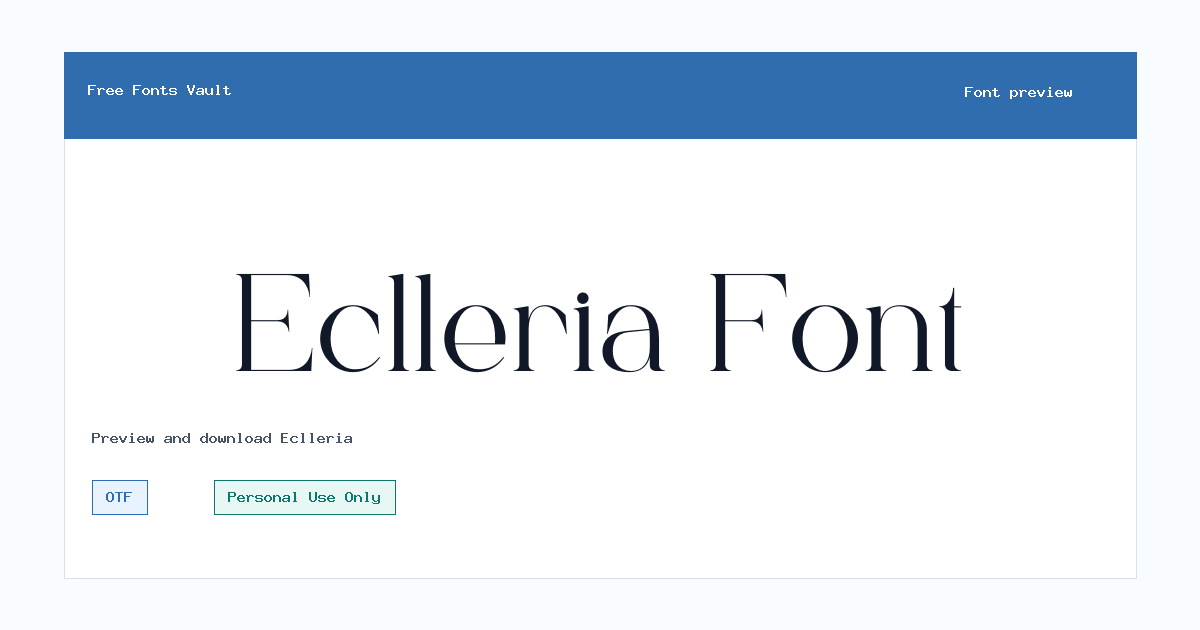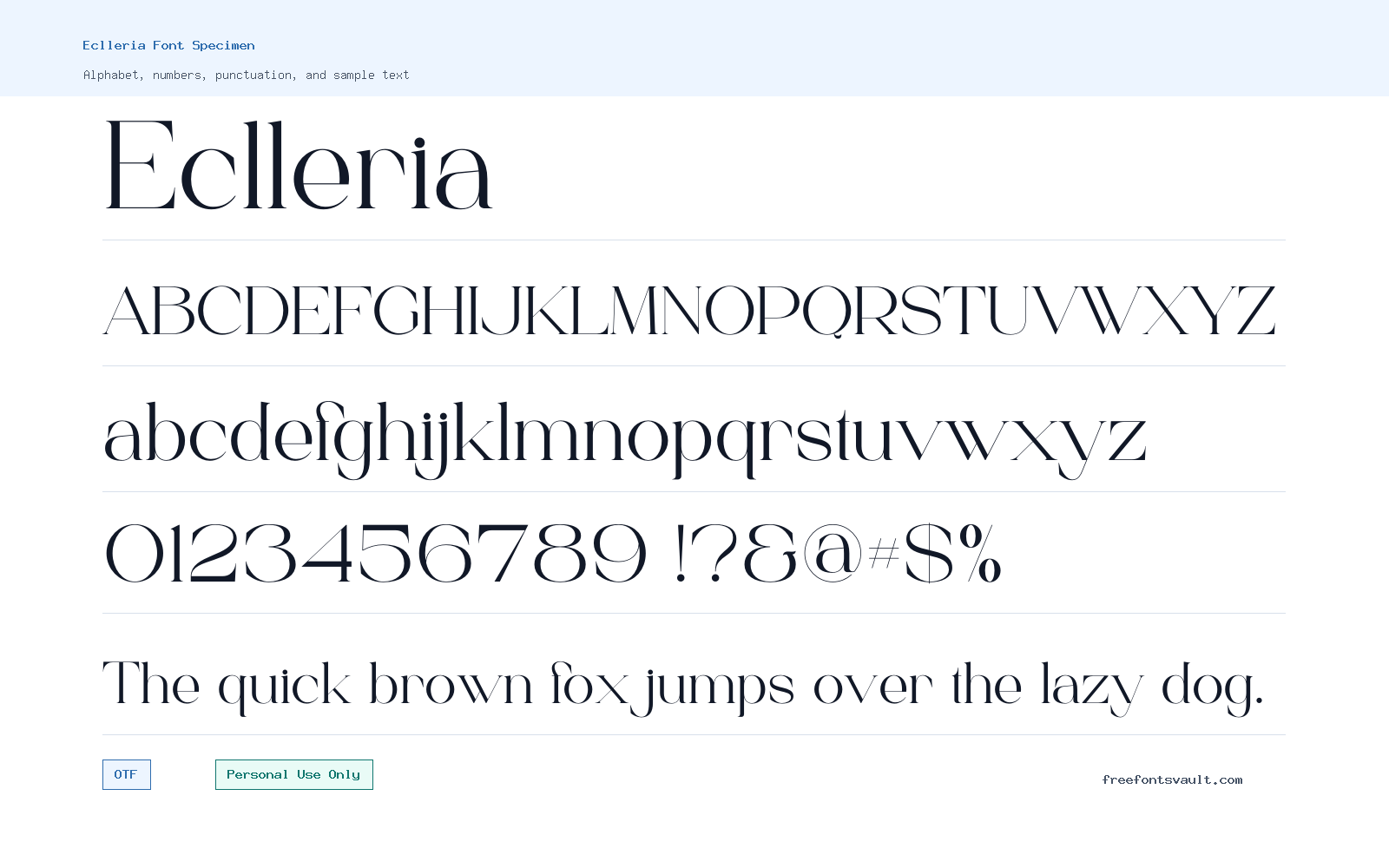
Eclleria
Eclleria Font
Eclleria is a serif font with a refined display feel, made for visitors who want to test a stylish typeface in previews before using it in personal design work.
About Eclleria Font
Eclleria works best when it has room to show its shape. As a serif typeface, it is a natural fit for titles, name marks, invitations, poster headings, packaging mockups, editorial-style graphics, and social media designs that need a more polished tone. Use the preview tool with short words, brand names, initials, and headline phrases rather than long paragraphs first. Display serif fonts often look strongest at larger sizes, where the contrast, spacing, and letter details are easier to judge.
For logo work and branding tests, try Eclleria with simple words and plenty of white space. Check how the uppercase letters, lowercase letters, and repeated characters behave in the exact name you plan to use. A font can look excellent in a sample but feel different once it is used for a real business name, poster title, or web hero heading. If you are building client work, product packaging, paid ads, merchandise, or a final public brand identity, treat the license limit seriously and confirm the proper commercial rights first.
• Serif display style suited to headings, short names, and decorative text settings.
• Normal style with 400 weight, making it straightforward to test as a main title face.
• Works well for personal mockups where a refined serif tone is needed without heavy visual clutter.
• Best judged at medium to large sizes, especially for logos, posters, covers, and social graphics.
• Personal logo drafts and name-mark experiments
• Poster titles and event graphics
• Invitation headings and elegant stationery mockups
• Editorial-style cover text
• Fashion, beauty, wedding, or boutique-style visual tests
• Website hero mockups and landing page headings
• Social media quote cards with short text
• Packaging concept previews for non-commercial use
What kind of projects is Eclleria good for?
It is best suited to display uses such as personal logo drafts, poster titles, invitation headings, cover text, social graphics, and web hero mockups.
Is Eclleria good for body text?
It is better to treat Eclleria as a display font. For paragraphs, pair it with a simpler text font and keep Eclleria for headings or short phrases.